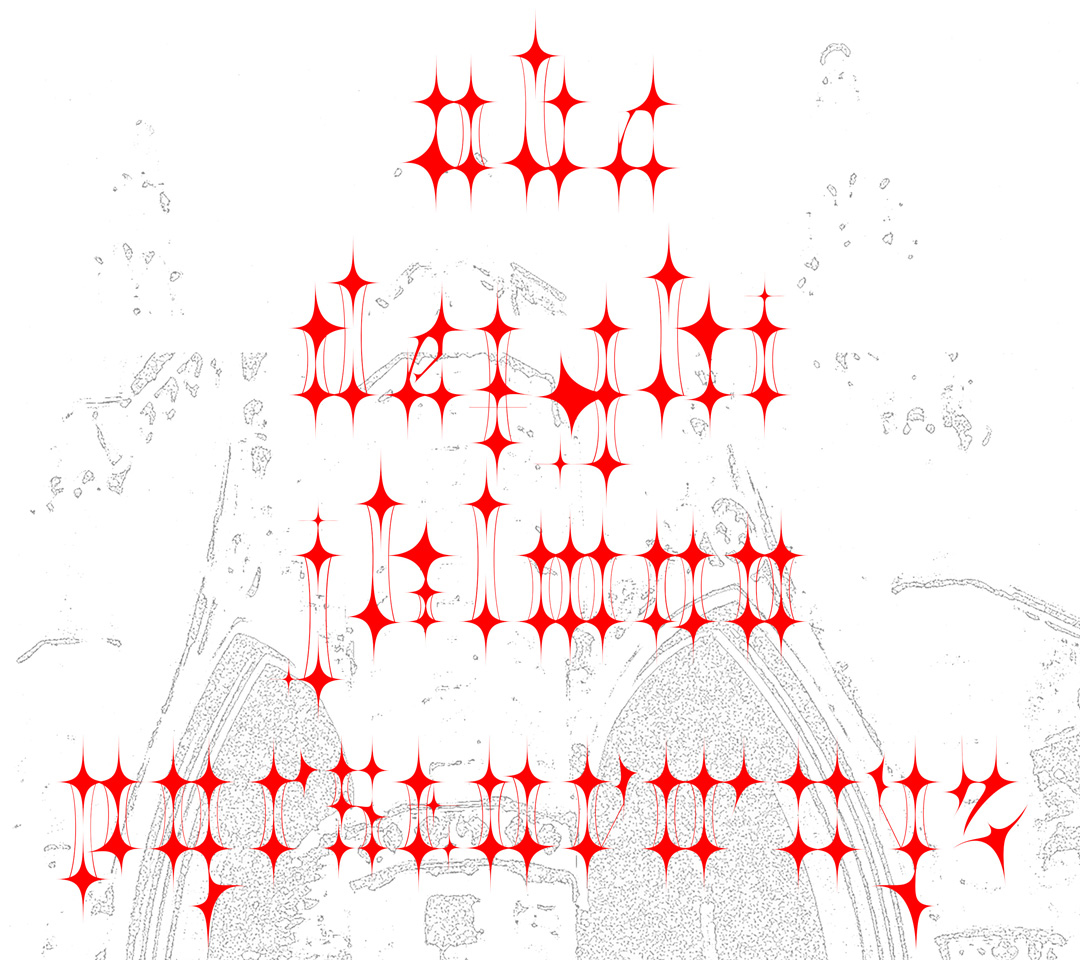
Sacra is a typeface drawn from the Victorian architecture seen at Nunhead Cemetery, focusing on the chapel. When visiting, I felt immediately drawn to the chapel as it appeared it was the unofficial spotlight of the cemetery due to its dominance and intricate detailing. This informed Sacra's letterforms as it features the structure of the chapel's front arch into my typeface. Combining key elements of the chapel like sharp curves and points to echo the gothic, Victorian qualities of the architecture. Sacra reflects the character and period of the cemetery by expressing its history in a typeface.